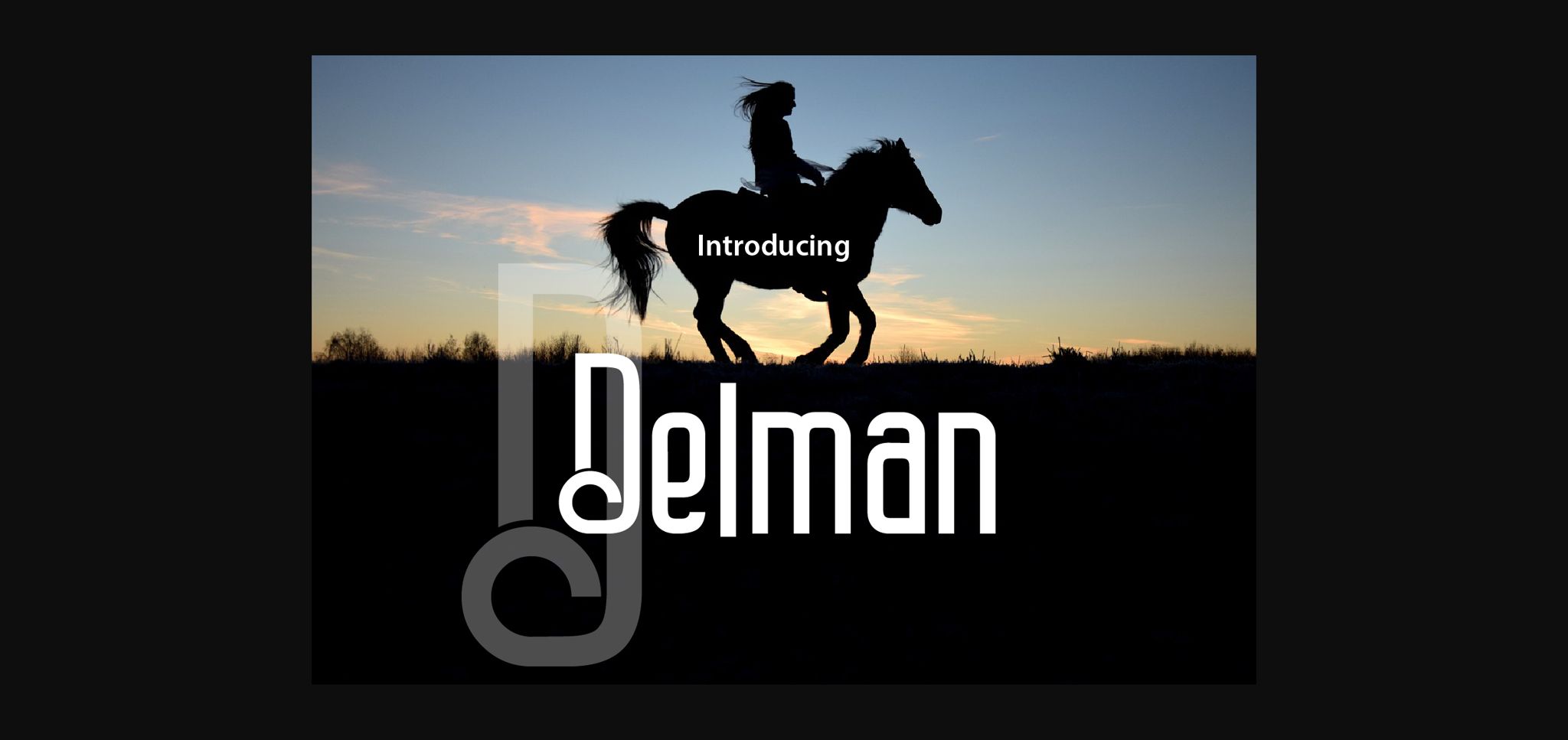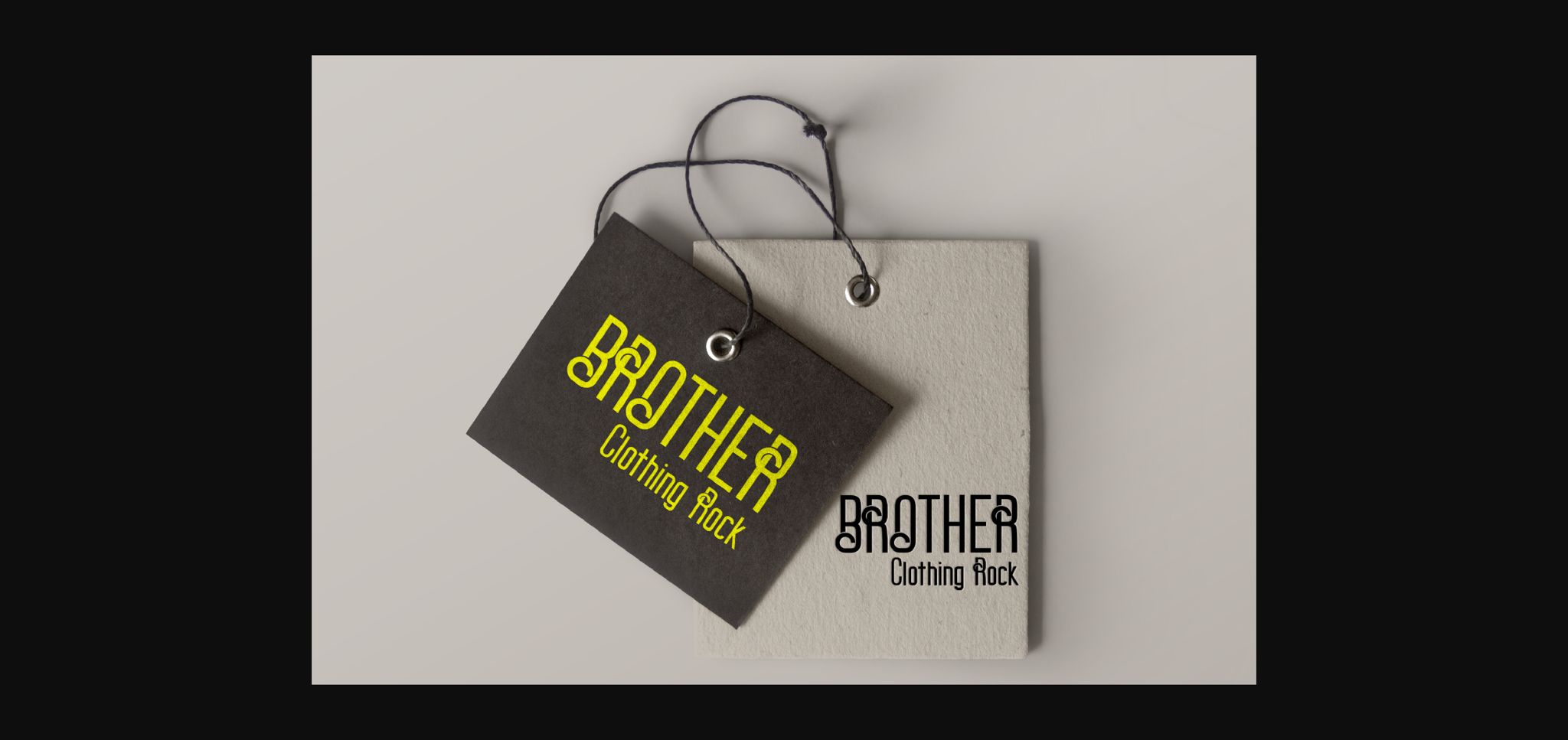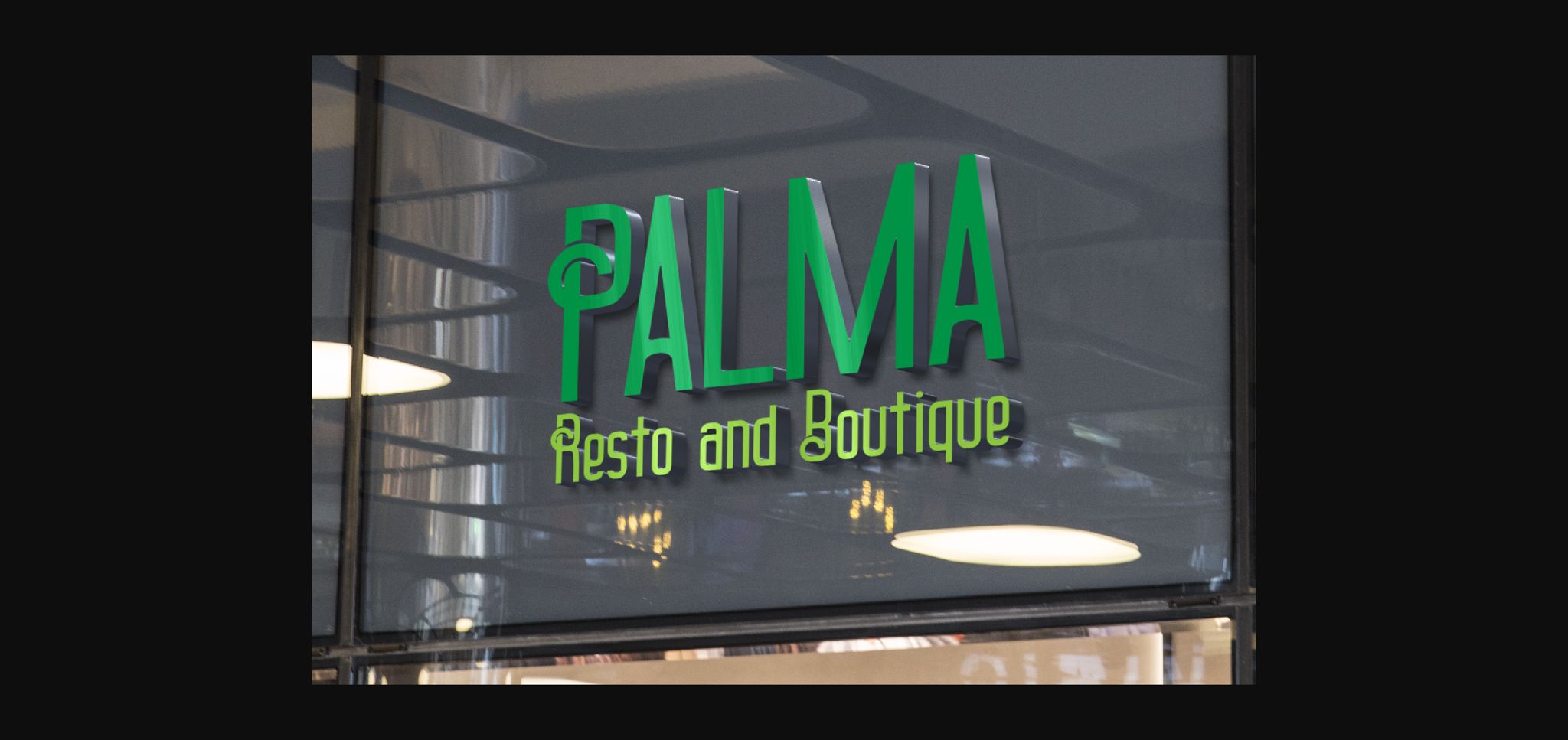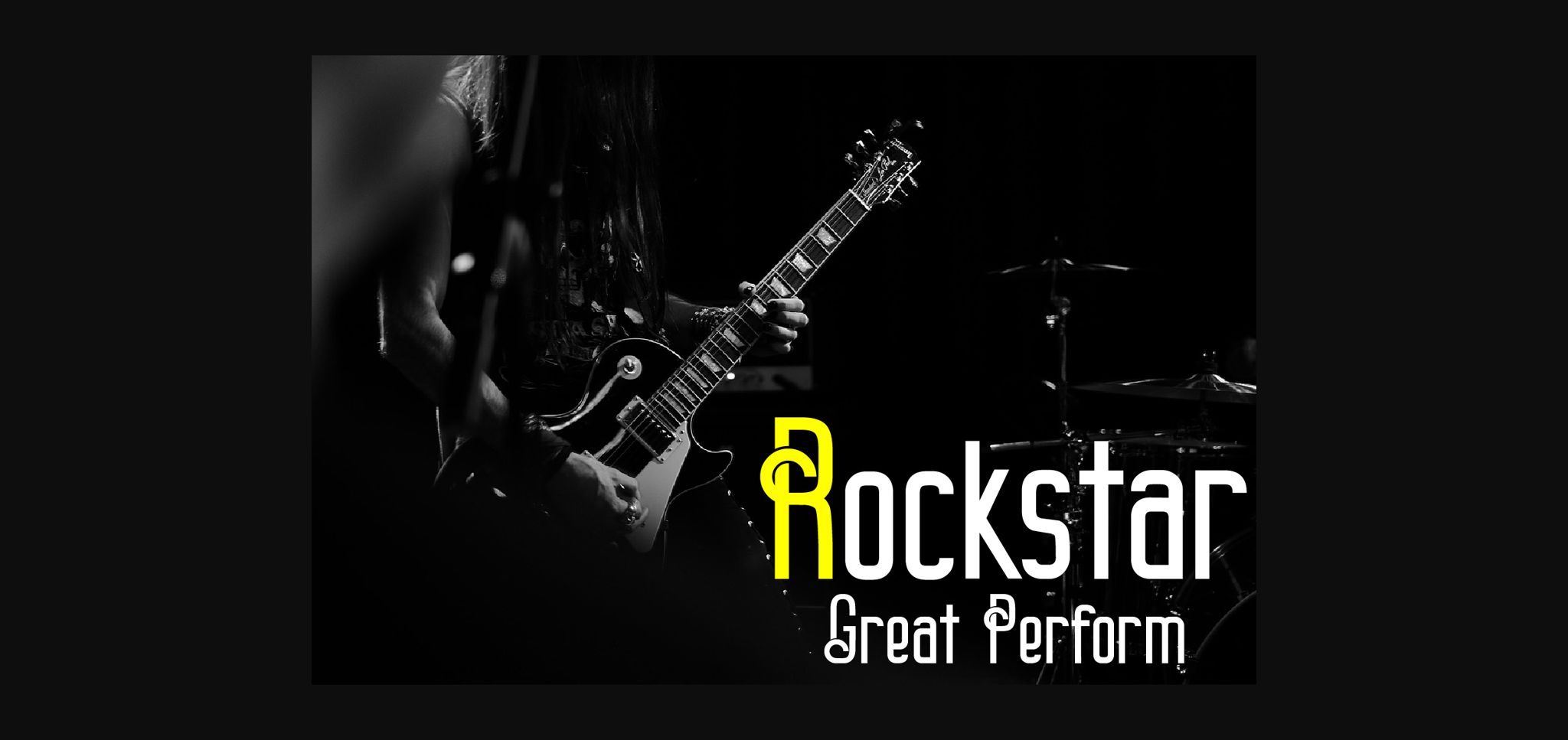
Delman is an experimental and versatile font. It’s suitable for digital lettering, prints, logo, poster, t-shirt, packaging and applicable for any type of graphic design.